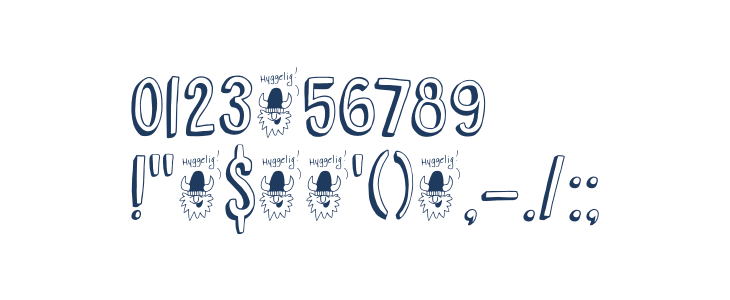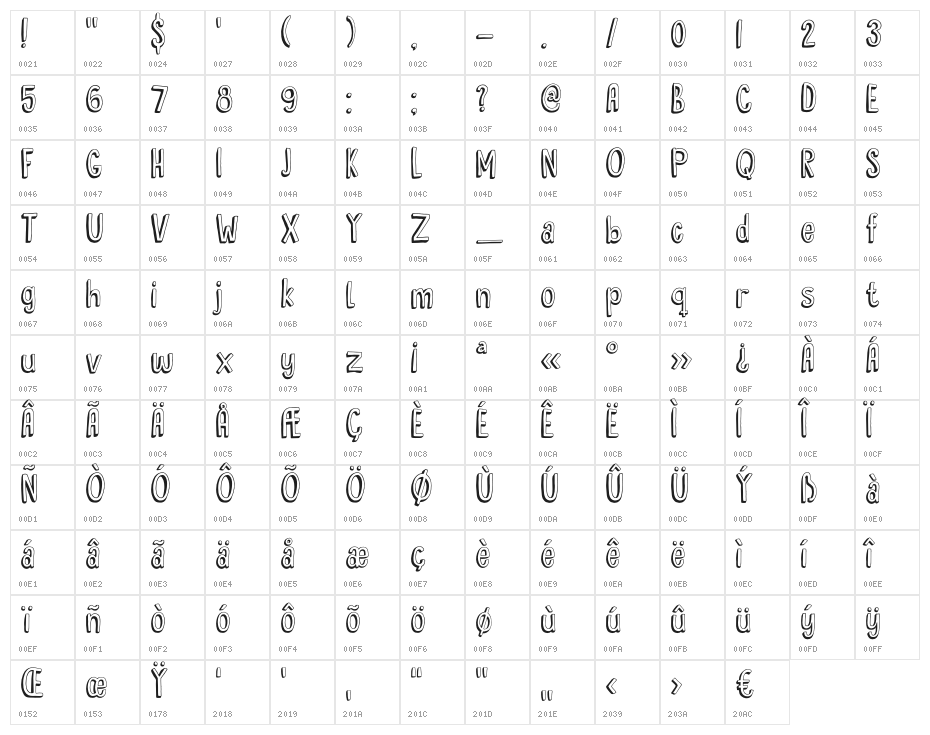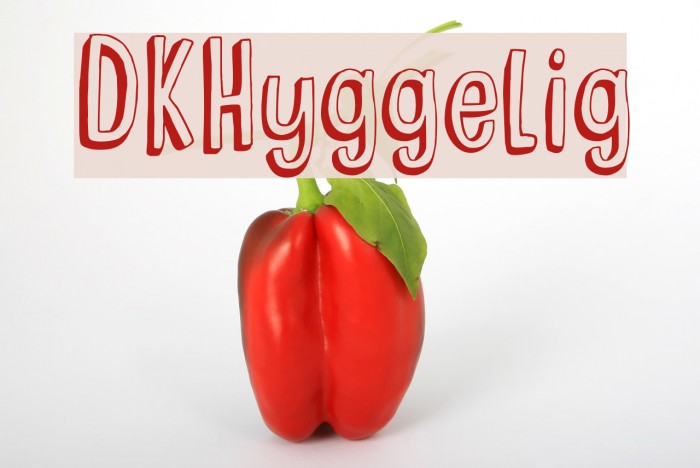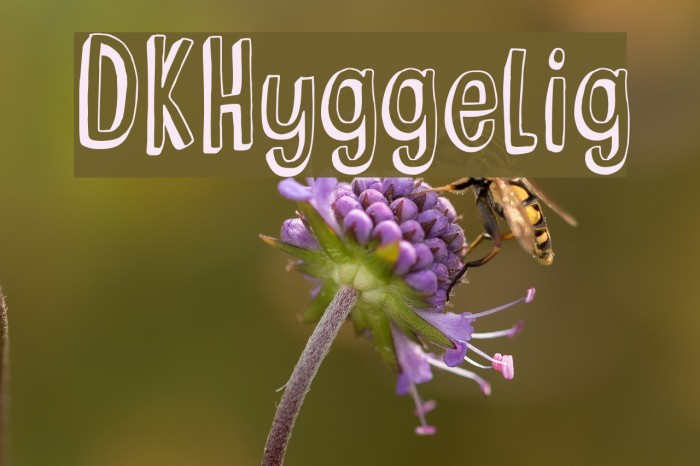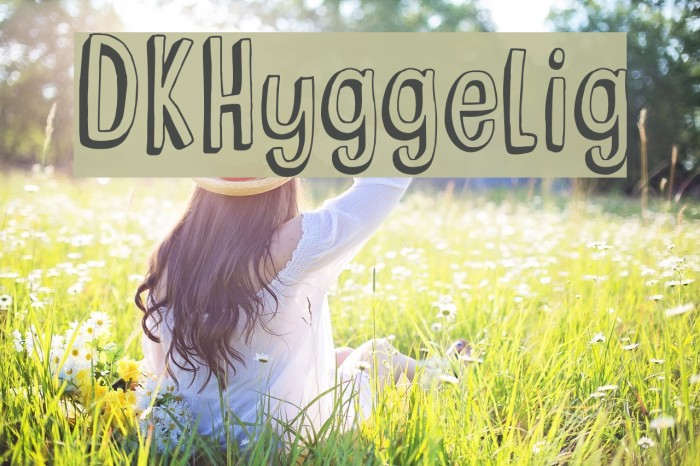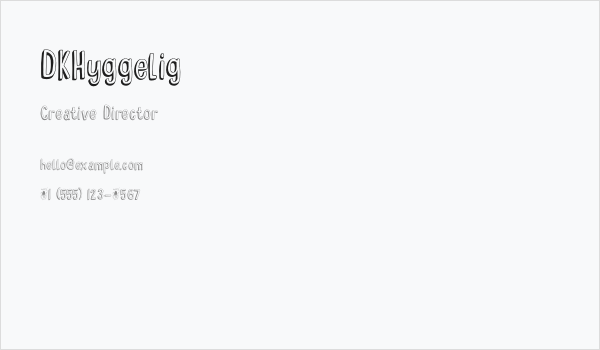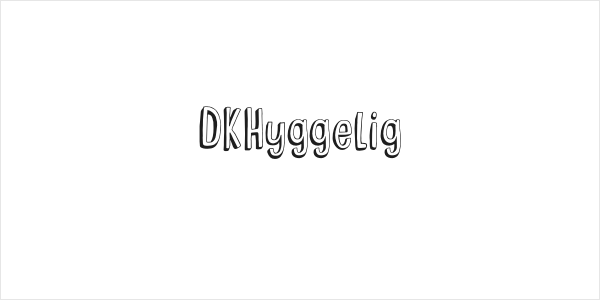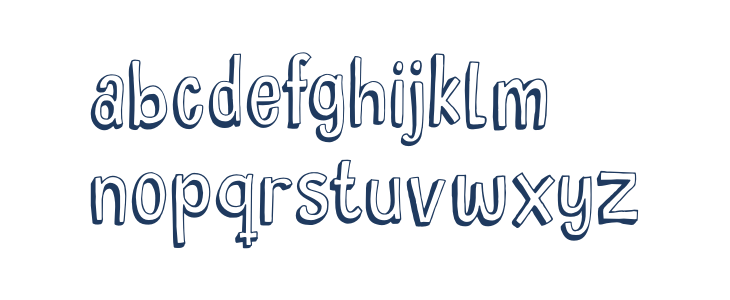
DKHyggelig Font
DKHyggelig Description
This playful and whimsical font features bold, hand-drawn characters with a cartoonish flair. The uppercase and lowercase letters are slightly irregular, adding a charming and informal touch. The numbers and special characters maintain this lively style, making the font perfect for creative projects. The strokes are thick and consistent, providing a strong visual impact. The font's unique personality is enhanced by its quirky details, making it ideal for designs that require a fun and approachable aesthetic.
Proposed ProjectsIdeal for children's books, comic strips, playful branding, and greeting cards.